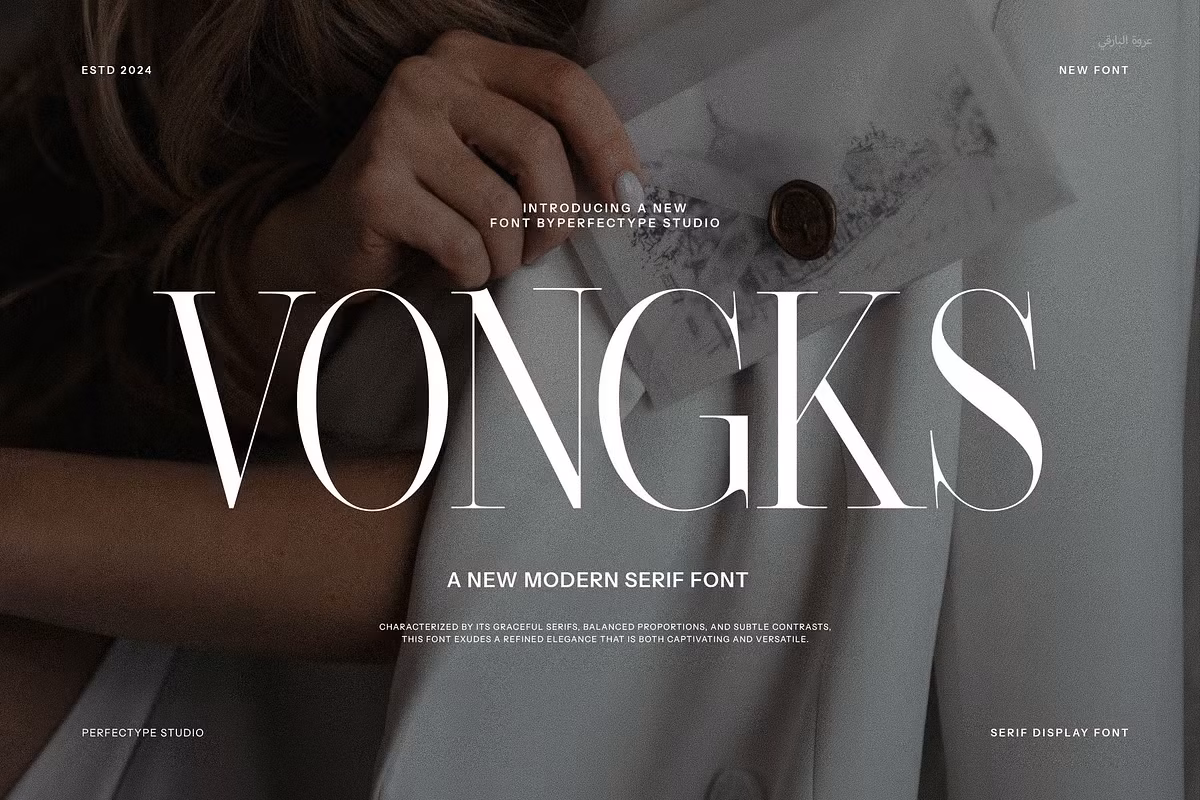
Elevate your design with Vongks Modern Serif Font Free Download — a sleek and elegant typeface crafted to bring a fresh, contemporary edge to your projects. Perfect for branding, website typography, editorial layouts, business cards, and product packaging, Vongks provides a modern take on the timeless serif style.
With its balanced proportions, strong contrast, and sophisticated lines, Vongks is perfect for creating professional, high-impact visuals. It includes uppercase and lowercase letters, numerals, punctuation, and multilingual support, making it a versatile choice for both print and digital designs.